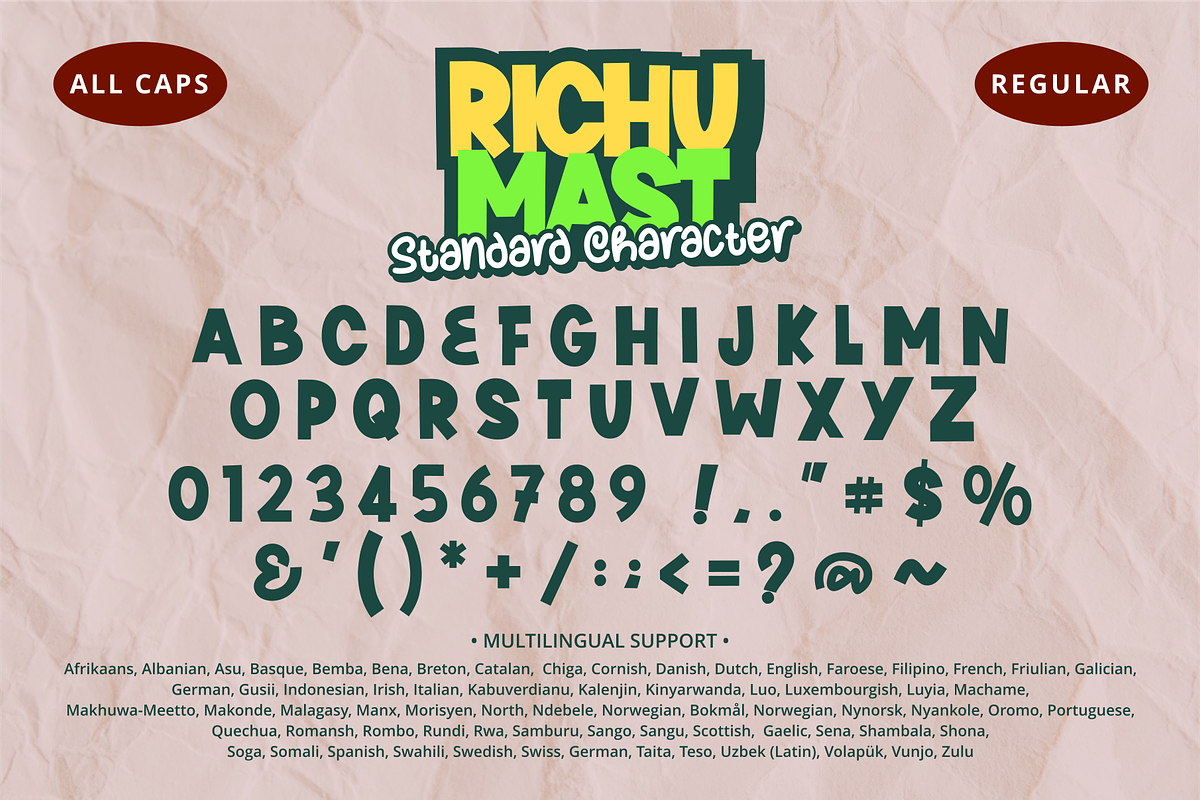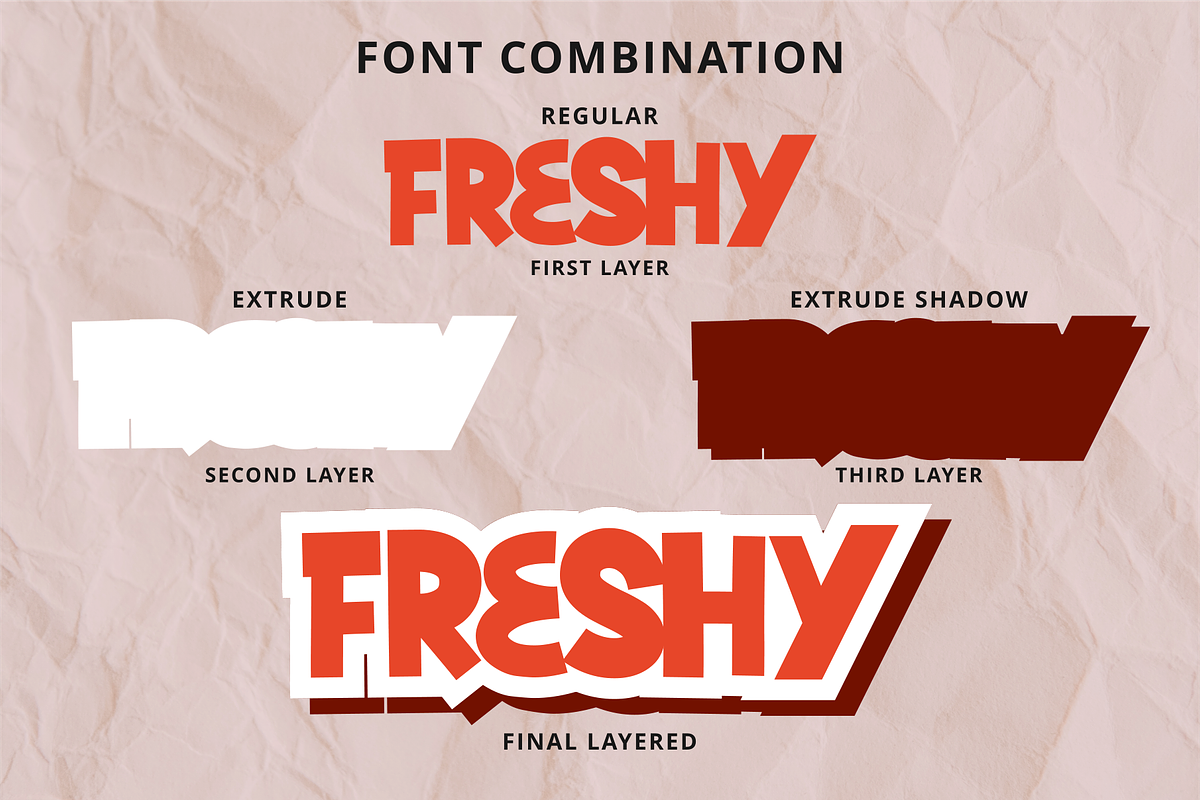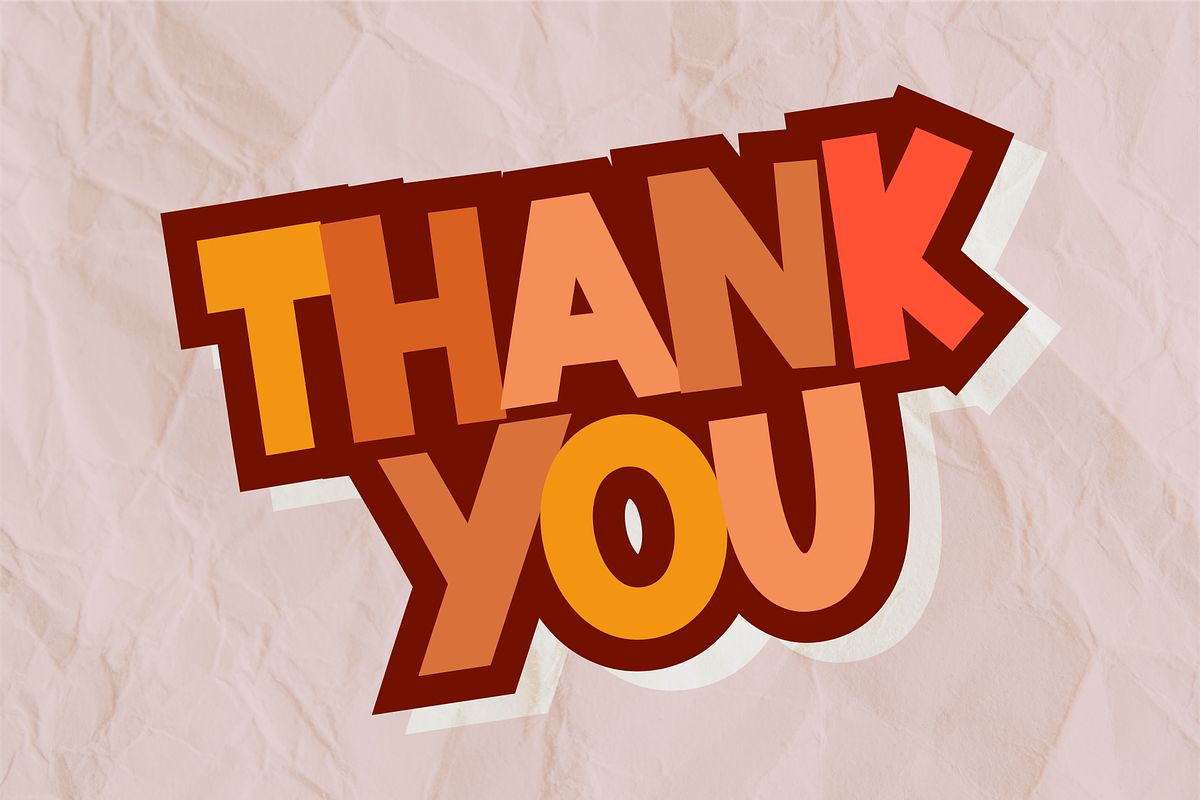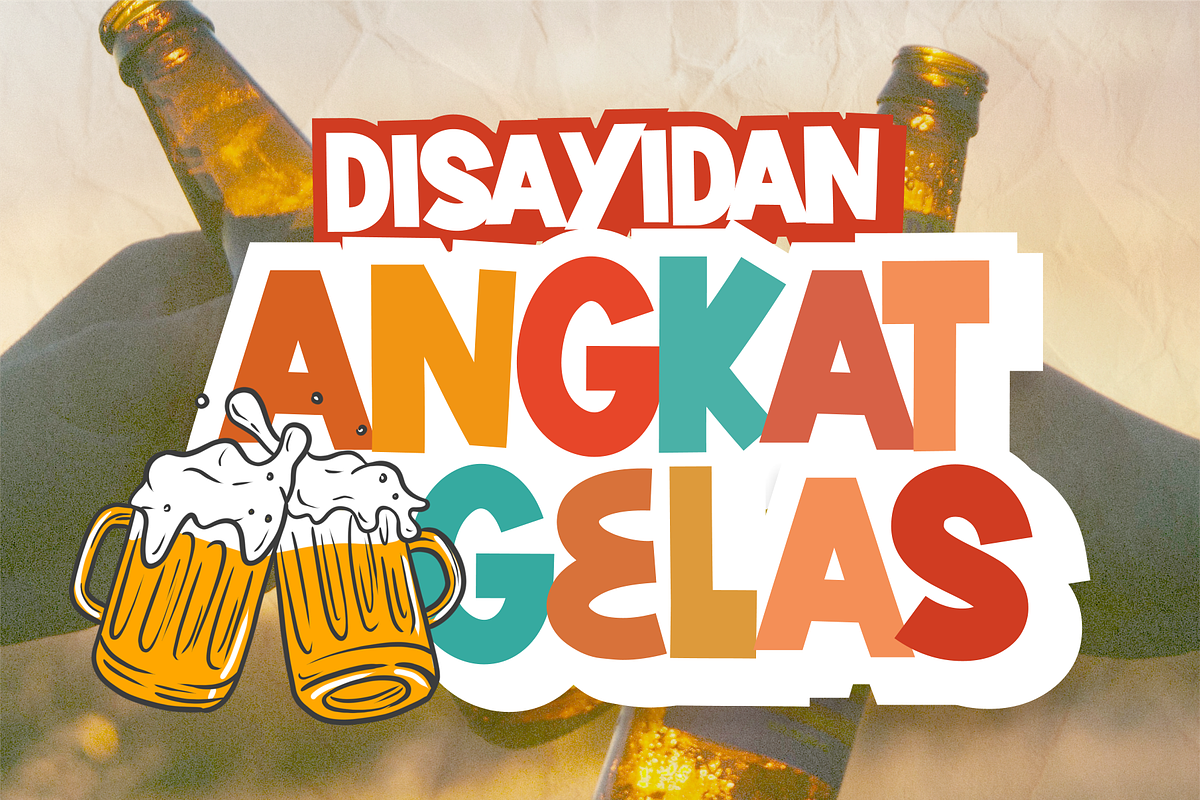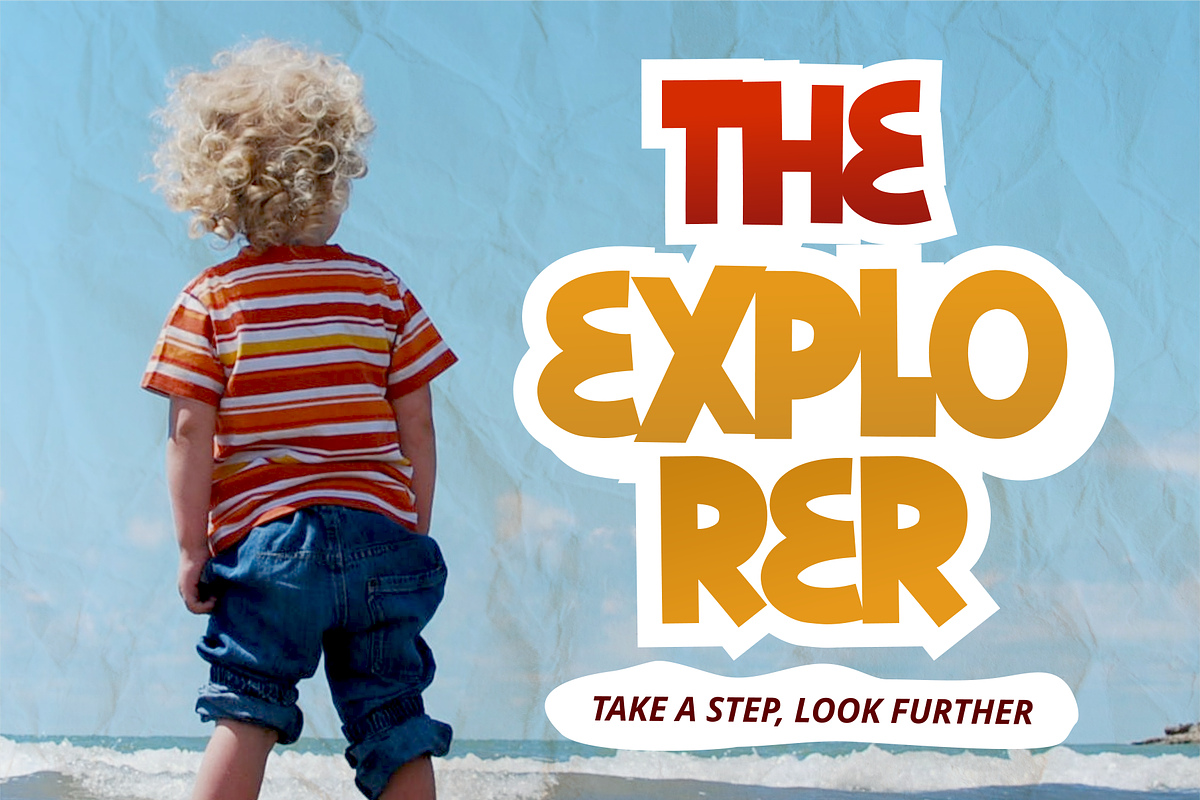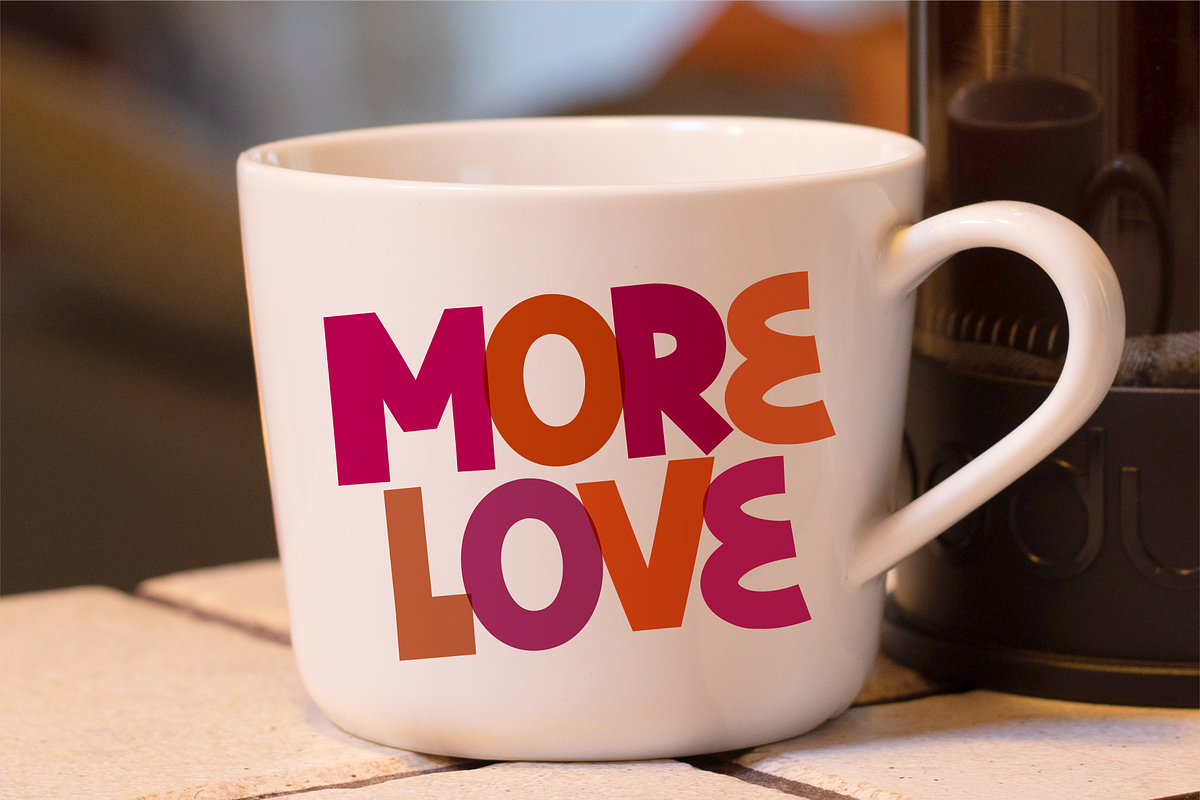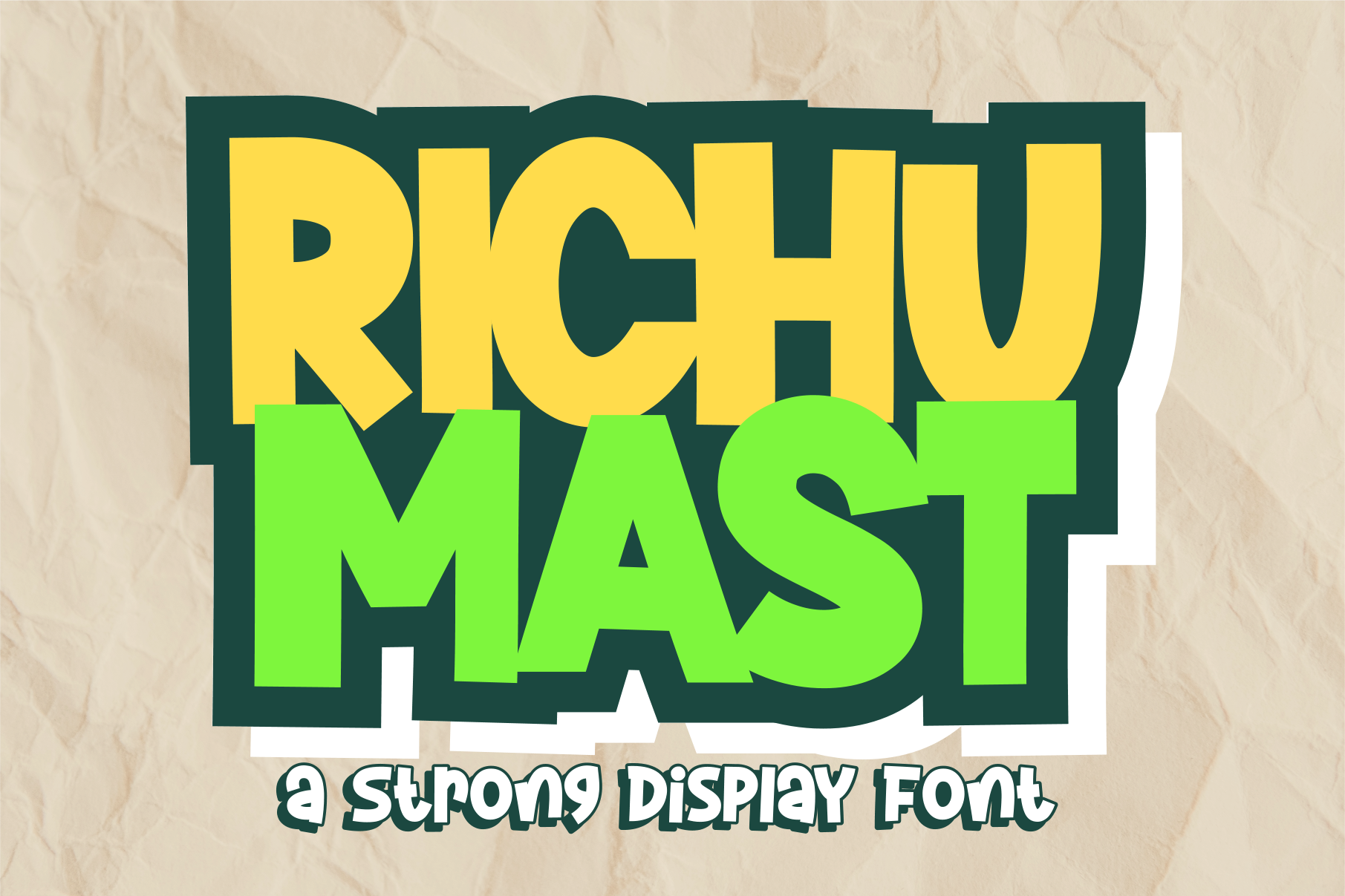
Richu Mast Font
Richu Mast is a layered display font inspired by the joyful world of colorful children. The unique characteristics make it suitable for various purposes such as quotes, T-shirt designs, flyers, YouTube channels, labels, logos, and every other design which needs a playful touch.